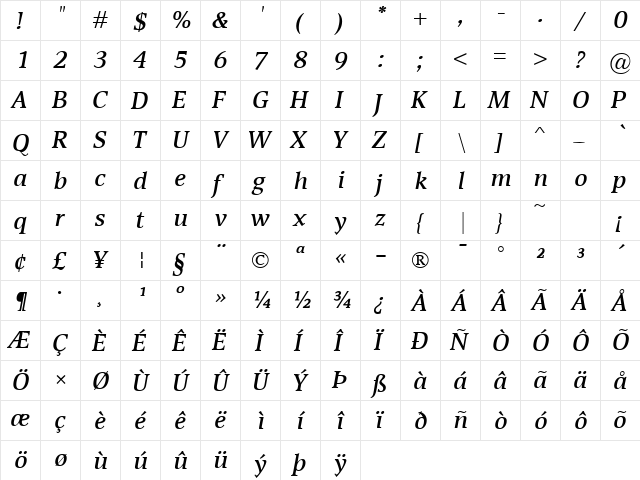
Devin SemiBold Italic Font Preview
Devin SemiBold Italic
Devin SemiBold Italic Font Details
Design Context for Devin SemiBold Typeface
Devin SemiBold offers clean, dependable letterforms without strong stylistic allegiance, making it a practical choice for designers who need flexibility. Its italic angle brings a sense of urgency and motion to the letterforms. The heavy weight commands attention and anchors typographic hierarchies.
Pro Tip: Use Devin SemiBold for emphasis, pull quotes, and subheadings where its slanted energy can add rhythm to the layout.